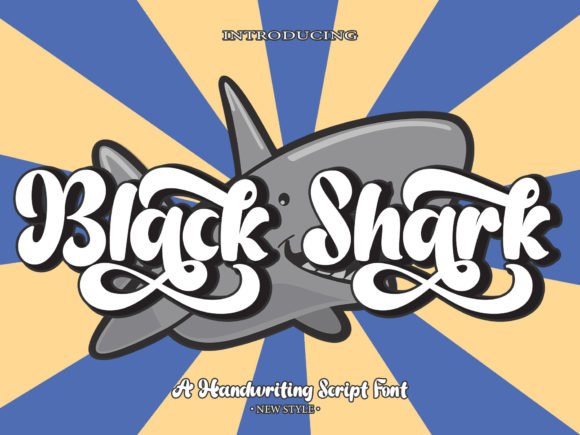
The Retro Charm of Black Shark Font: A Designer’s Delight
I’ll never forget the time I was working on a project for a client who wanted a retro-themed invitation for a 90s-style party. I had spent hours browsing through font libraries, but nothing seemed quite right. That was when I stumbled upon the Black Shark font. Its unique, handwritten style immediately caught my eye, and I knew I had found the perfect fit. In this article, I’ll share my experience with Black Shark font, its features, and how to make the most of it in your designs.
An Honest Review of Black Shark Font
What I Love About Black Shark Font
- ✨ Unique and retro look that adds a touch of personality to any design
- ✅ Handwritten style that feels informal and approachable
- 💯 Highly legible, even at smaller font sizes
- 🎨 Versatile and can be used for a wide range of design projects, from titles and invitations to letters and more
While Black Shark font is an excellent choice for many design projects, there are a few things to keep in mind:
- ⚠️ Limited availability of special characters and glyphs
- 🤔 May not be the best choice for very formal or professional designs
The Story Behind Black Shark Font
Black Shark font was designed by a team of creatives who wanted to create a unique, retro-style font that would add a touch of personality to any design. Inspired by vintage posters and signage, Black Shark font is a love letter to the design of the past. With its bold, handwritten style and quirky charm, it’s no wonder that Black Shark font has become a favorite among designers and crafters.
Q: What type of designs is Black Shark font best suited for?
A: Black Shark font is perfect for informal designs, such as titles, invitations, letters, and other creative projects.
Q: Is Black Shark font available in different languages?
A: Black Shark font may not be available in all languages, but it does support a range of special characters and glyphs.